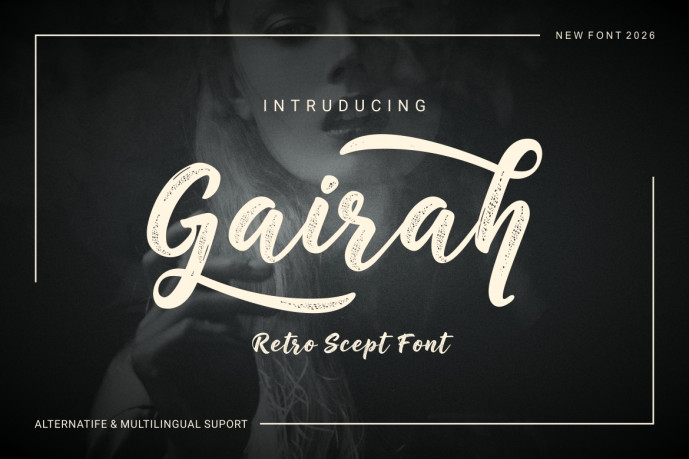
Gairah – Retro Scept Font
Designer: Galih Ardika
Introducing Gairah – Retro Scept Font is a modern serif typeface crafted for timeless elegance and visual storytelling. Its clean contrast and subtle ligatures make it ideal for branding, fashion editorials, and luxury packaging. Designed with cinematic grace, this font evokes sophistication and aesthetic harmony in every composition.
Font Features
. Uppercase & Lowercase . Alternatives & Ligatures . Numbers & Punctuation . Multilingual Support . Includes OTF, TTF.
Perfect For: Luxury branding, editorial headlines, packaging, and logo design.